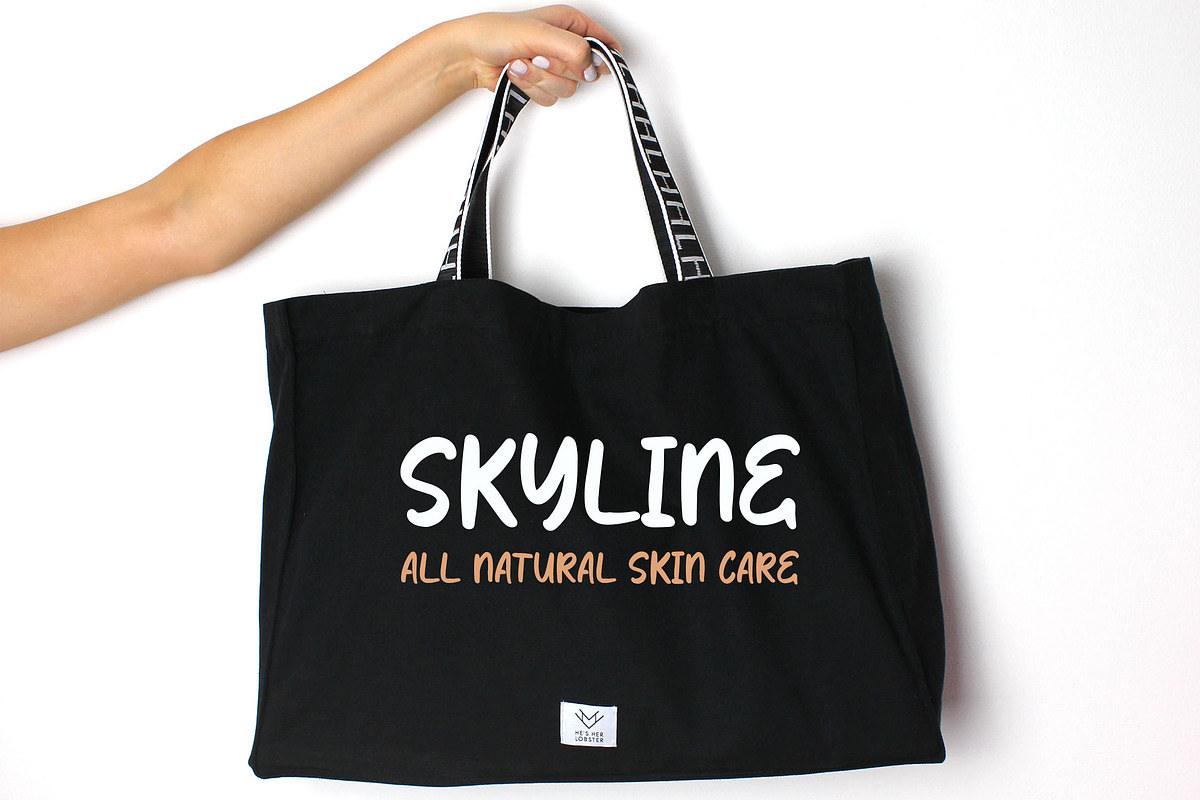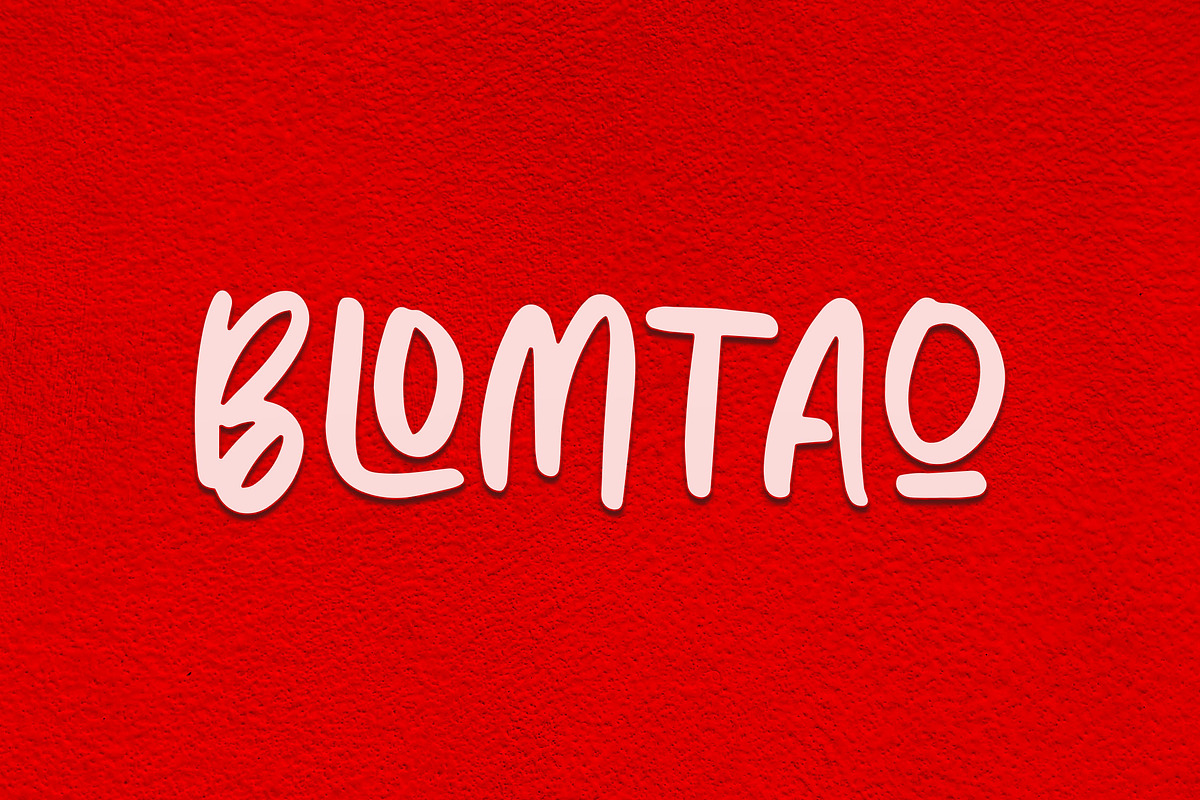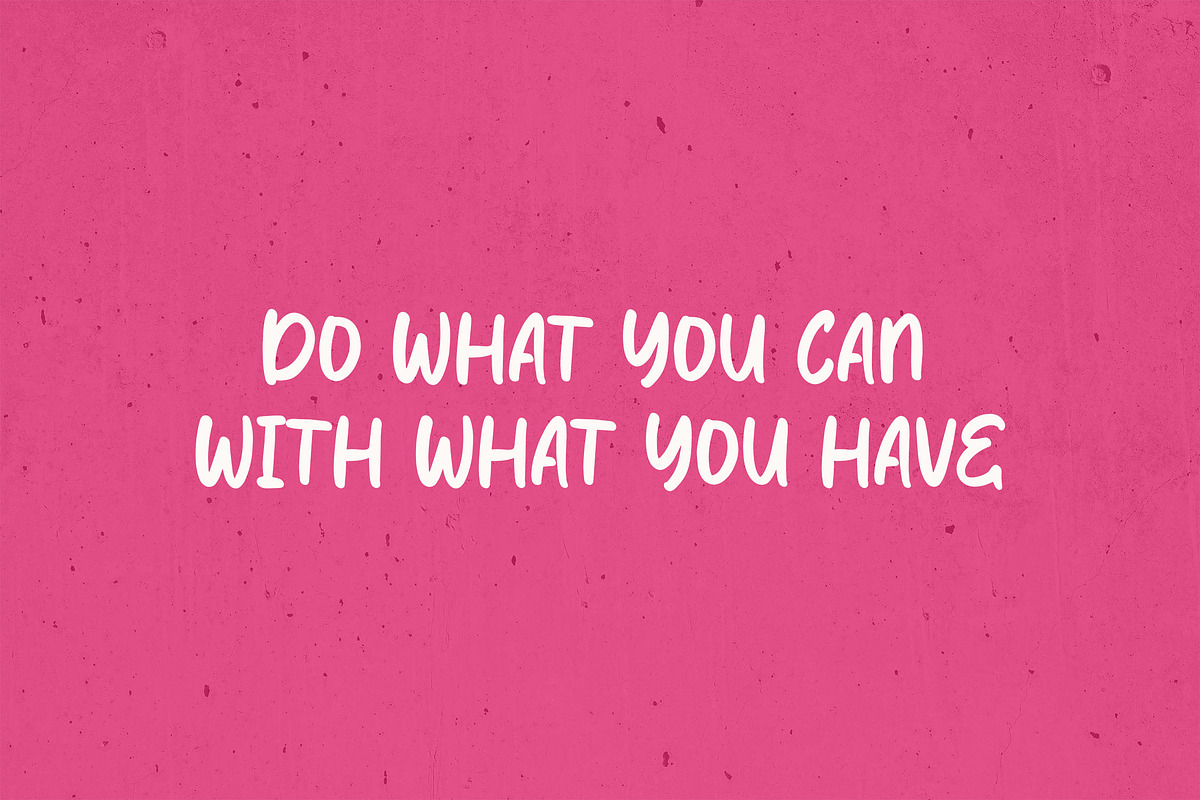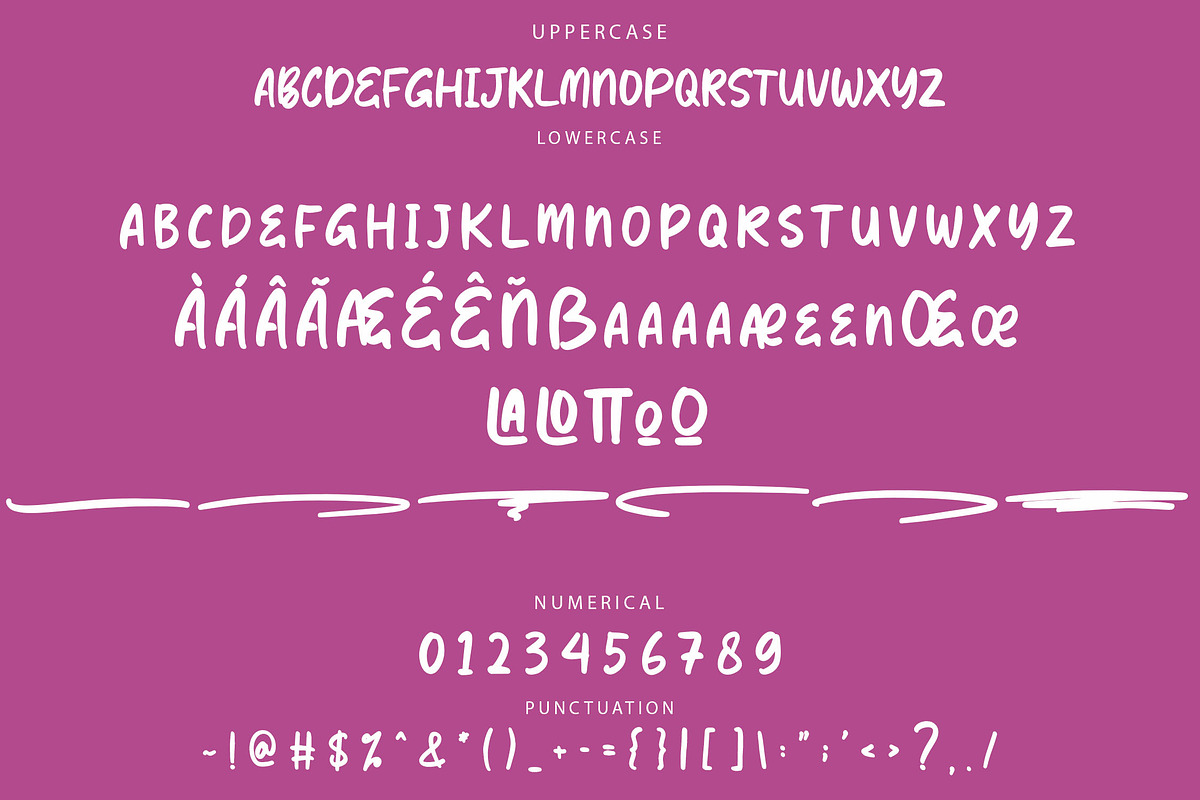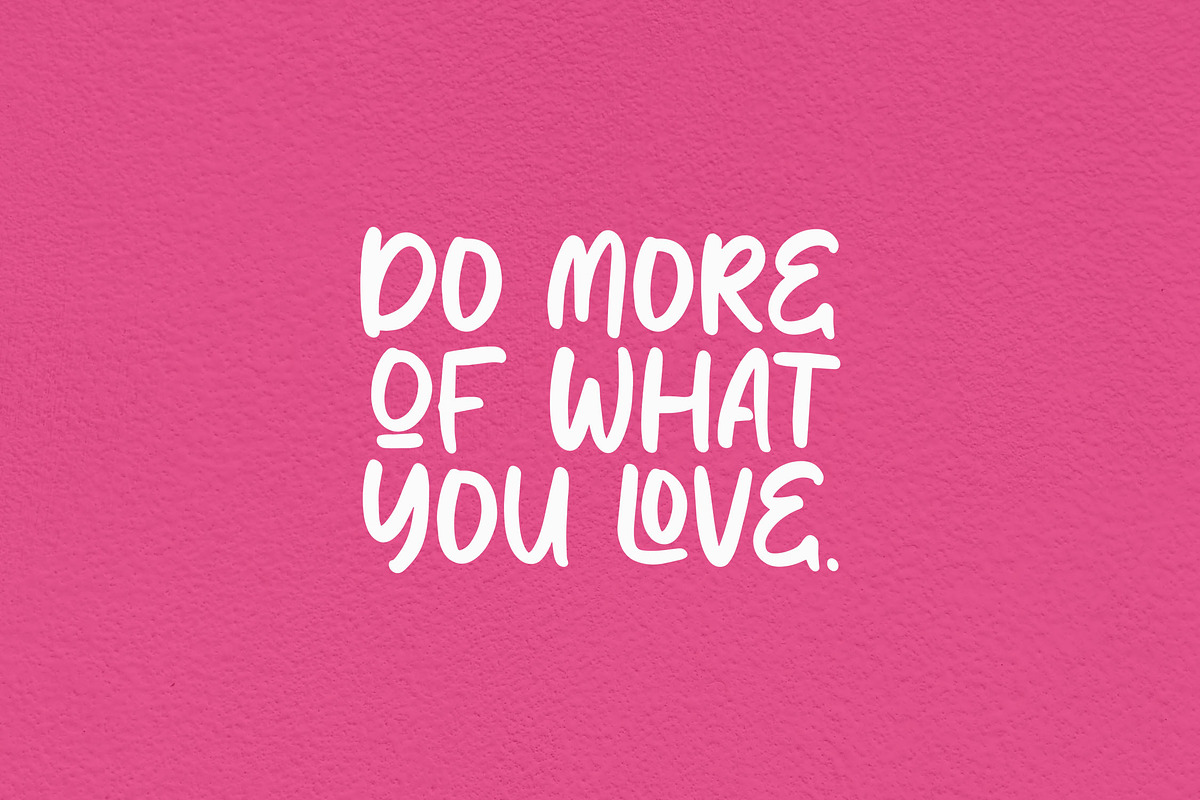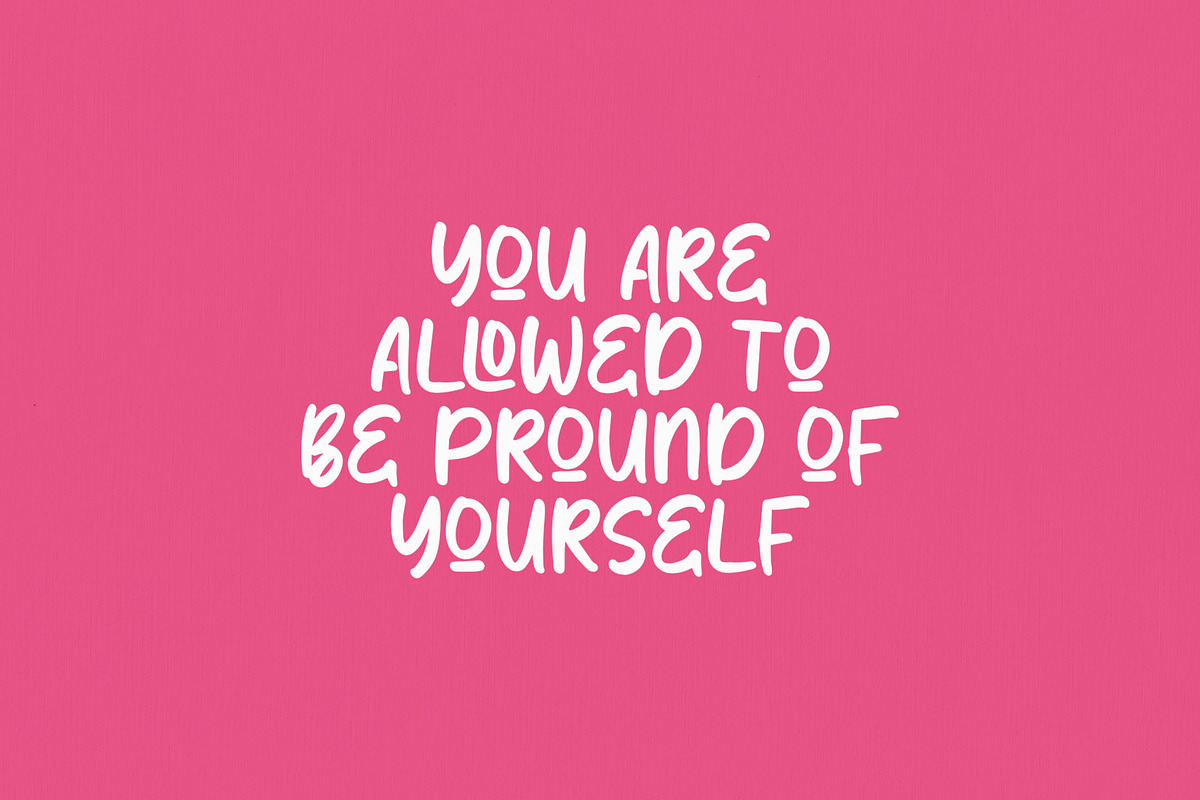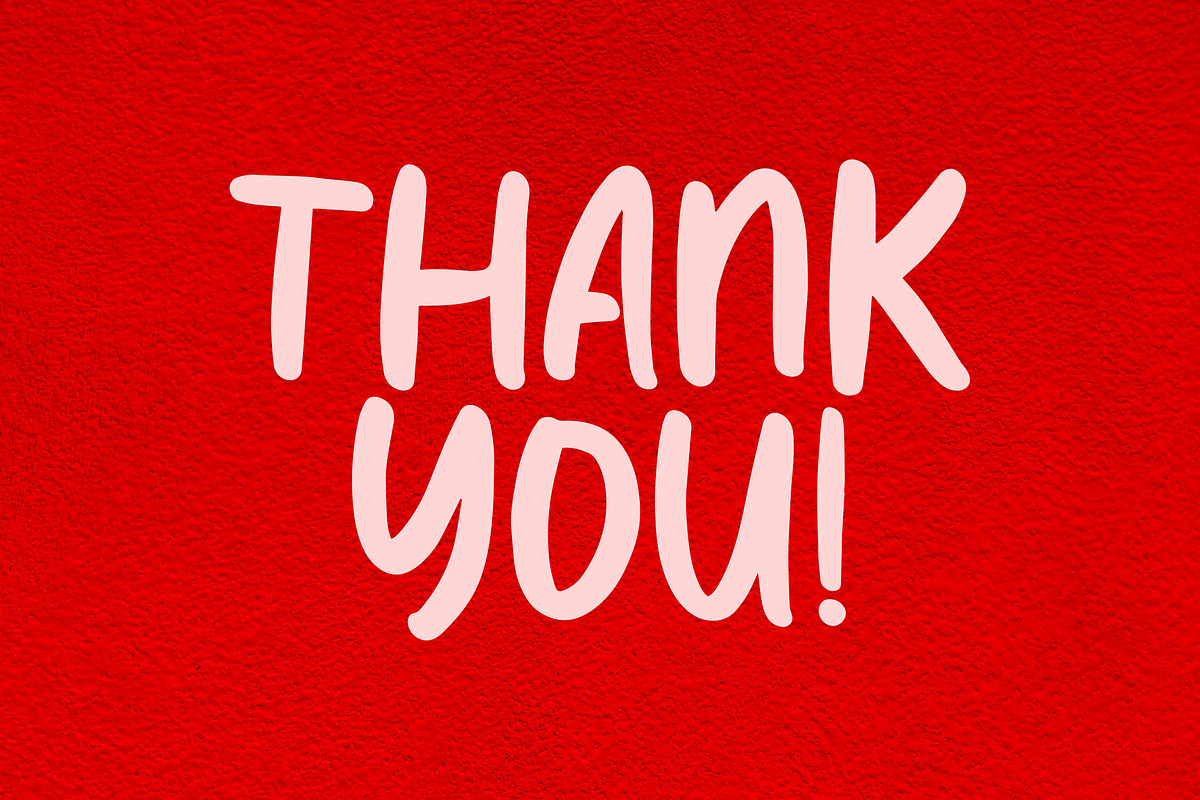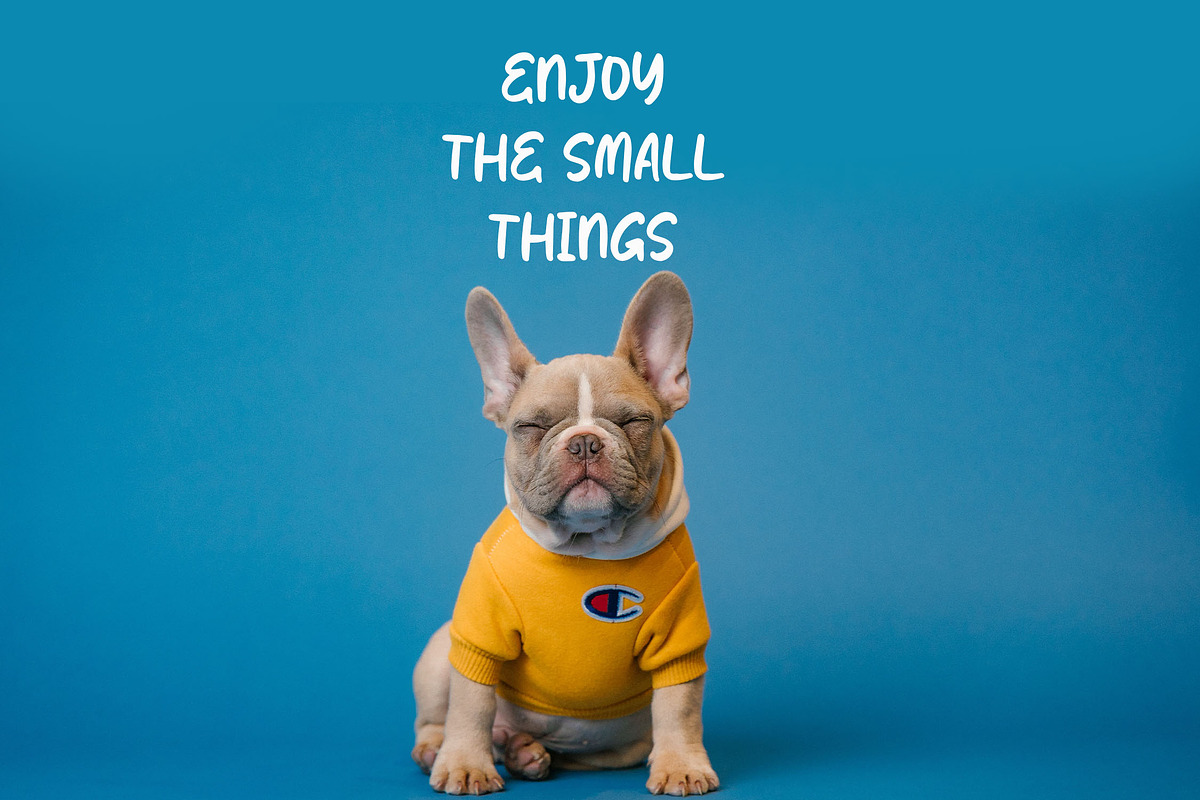
BLOMTAO Brush Font
BLOMTAO - Playful and Cute Brush Font
Introducing BLOMTAO, a delightful brush font with a cute and whimsical style. Its unique character shapes bring a fun and lighthearted touch to any design, making it perfect for playful projects, children's products, packaging, and branding. With its charming and quirky appearance, BLOMTAO adds a joyful vibe that enhances your creative work.
- Includes ligatures, stylistic alternates, and swashes
- Multilingual support for broader application
Bring a fun and playful spirit to your designs with BLOMTAO brush font!